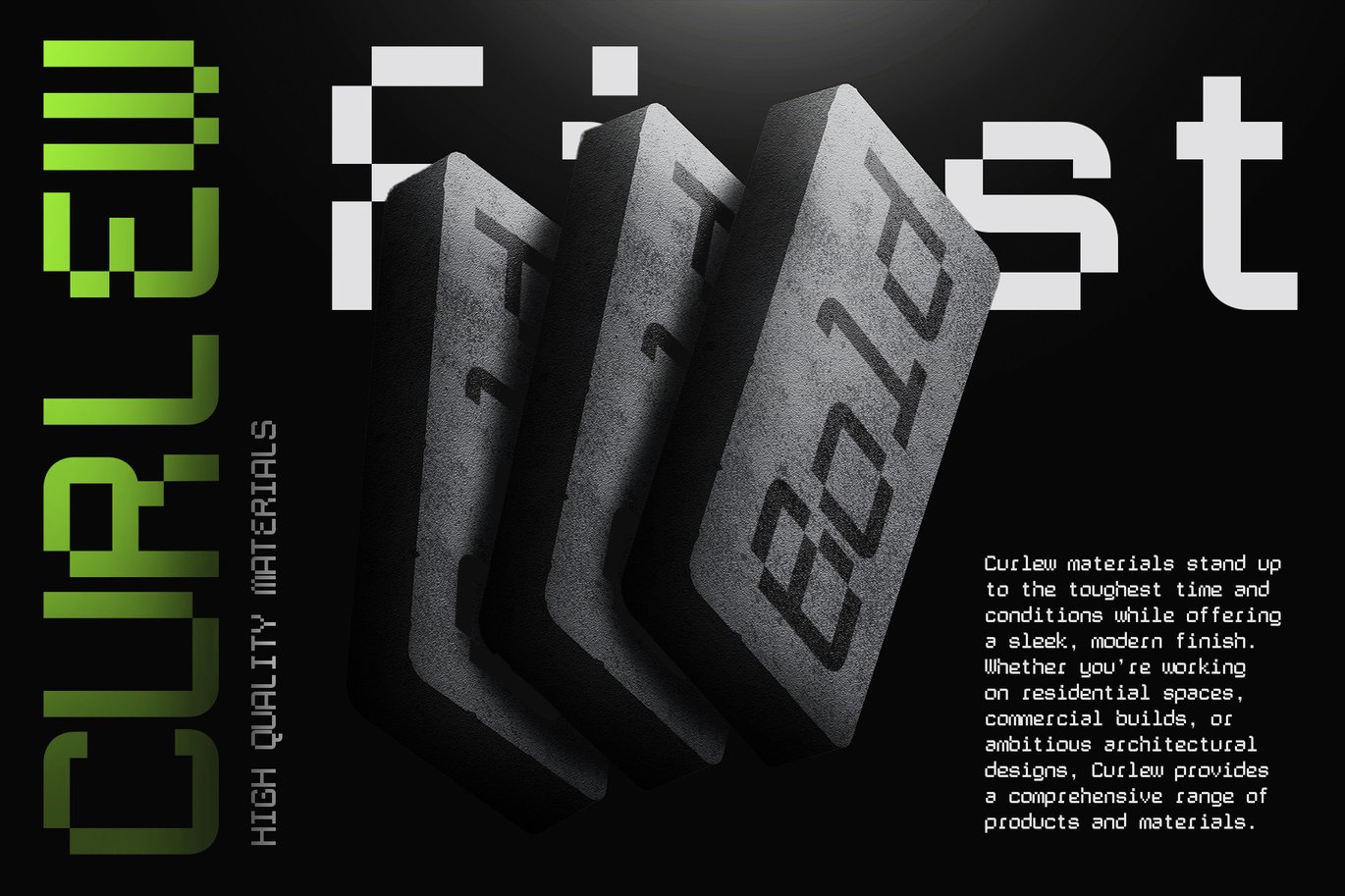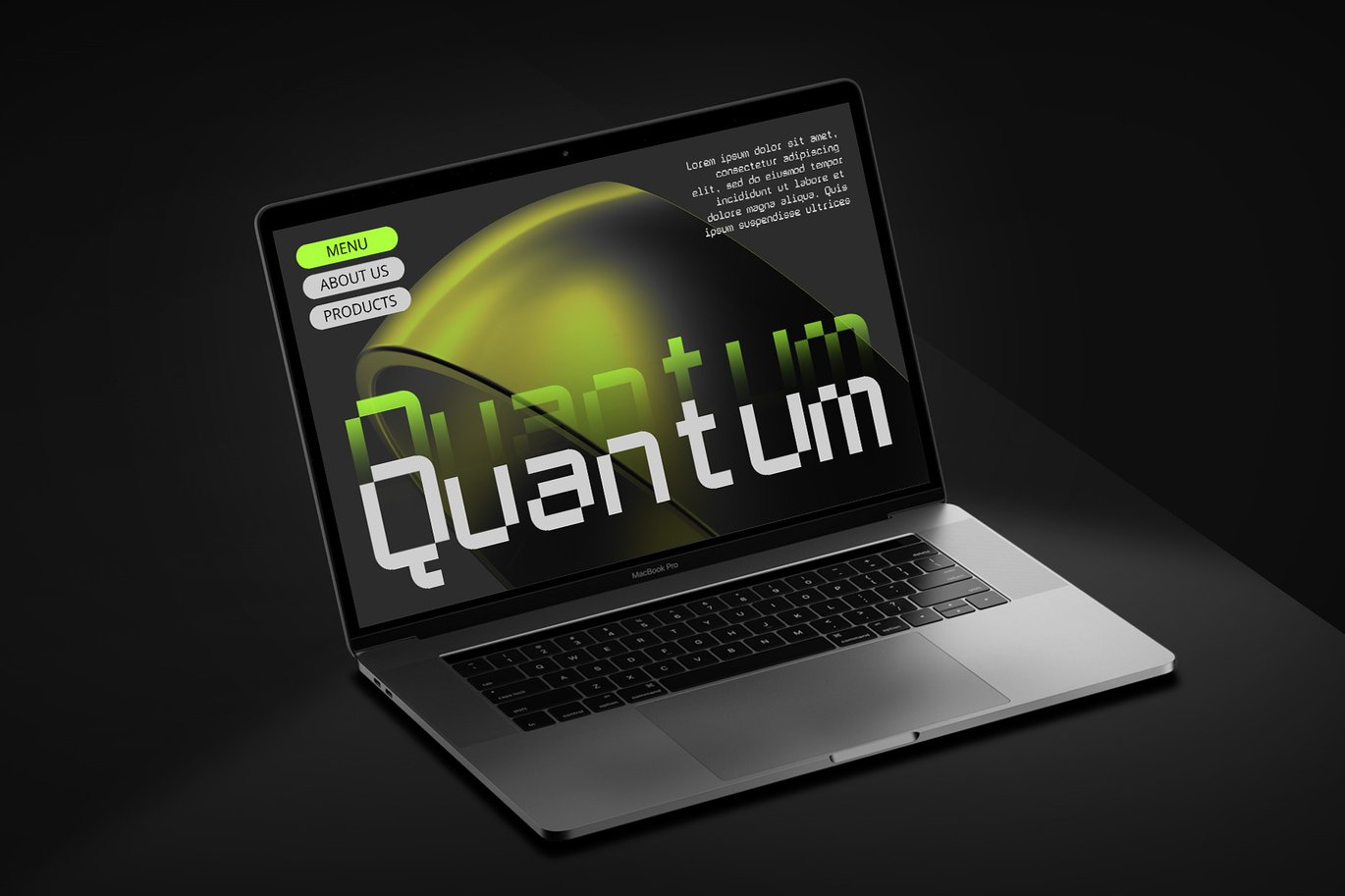
Caleb Mono – Monospaced Font
Caleb Mono – Monospaced Font is a versatile typeface ideal for various projects, including Sans-Serif, logos, branding, posters, blog headers, advertisements. The free version includes a full set of uppercase and lowercase letters, available in OTF, TTF format.